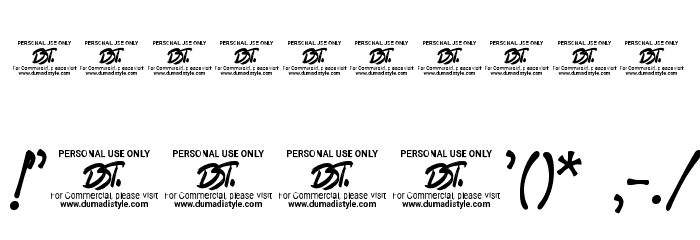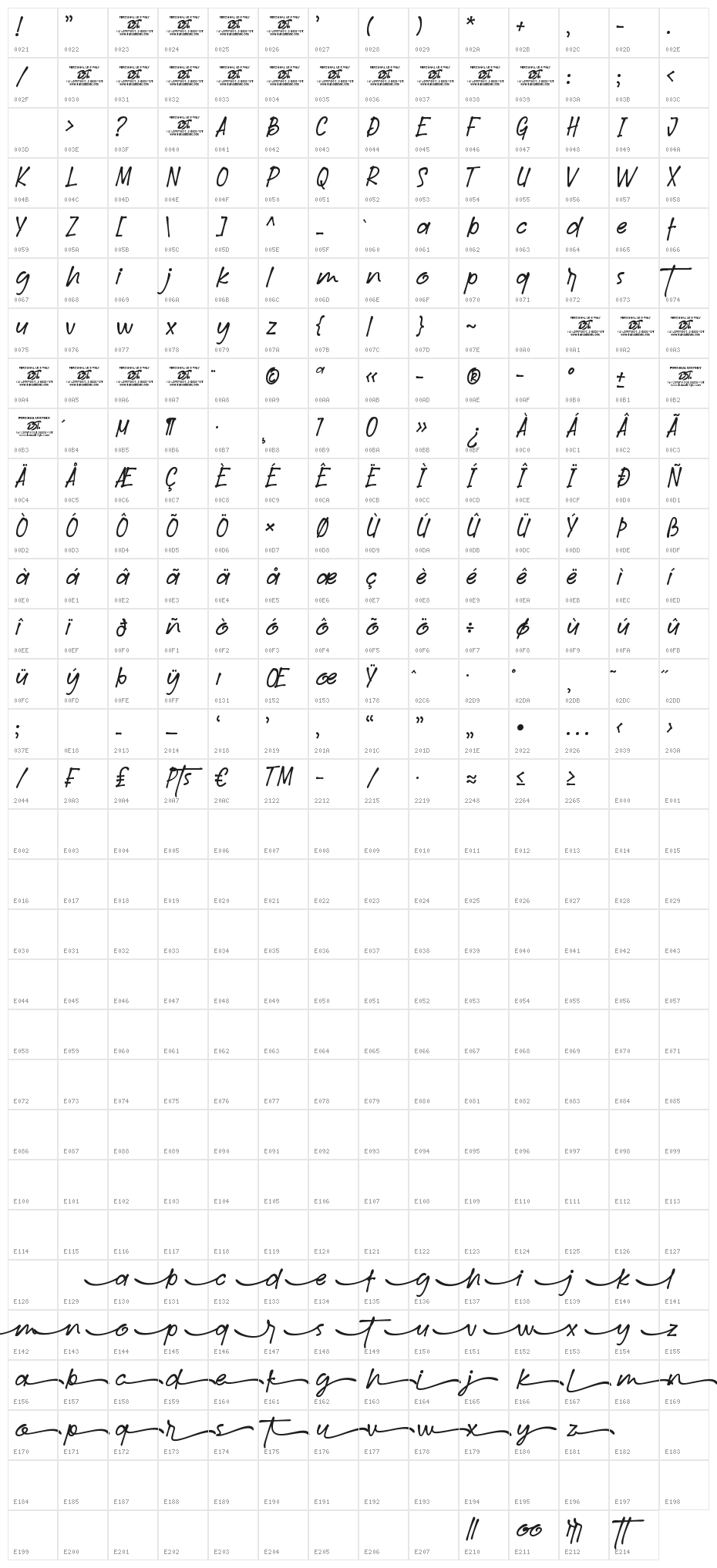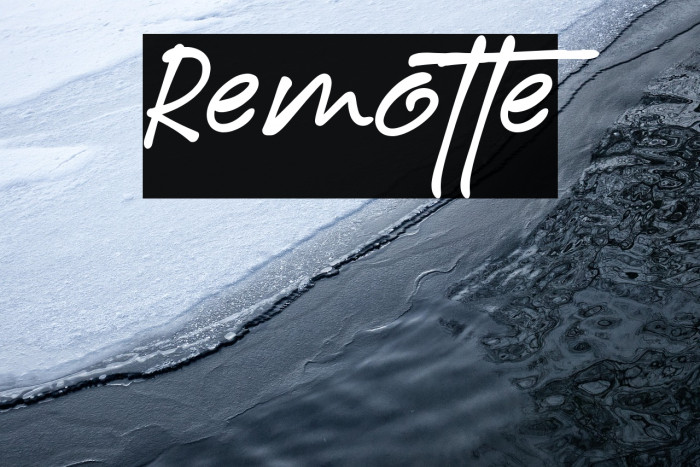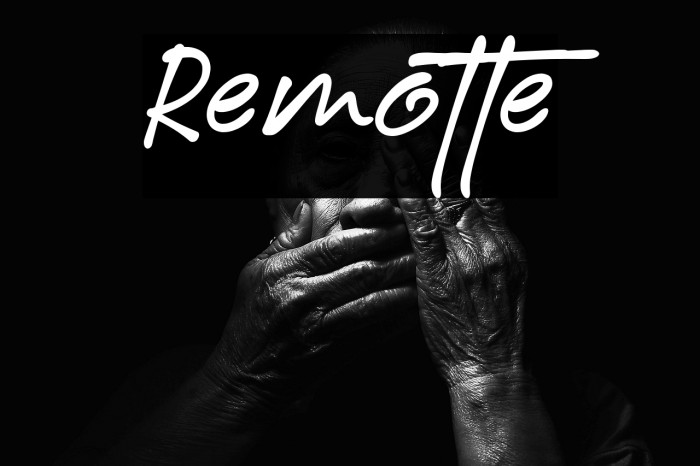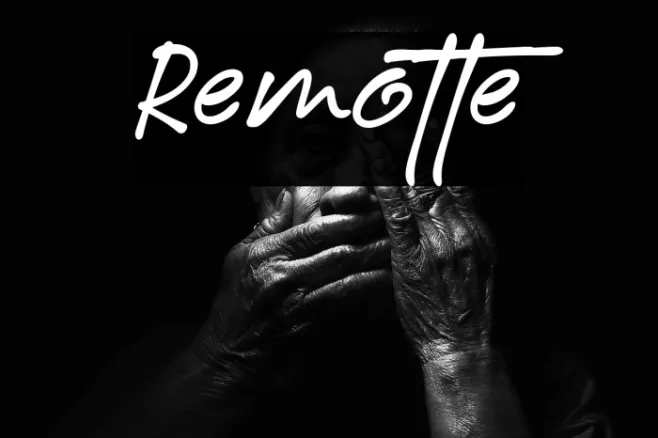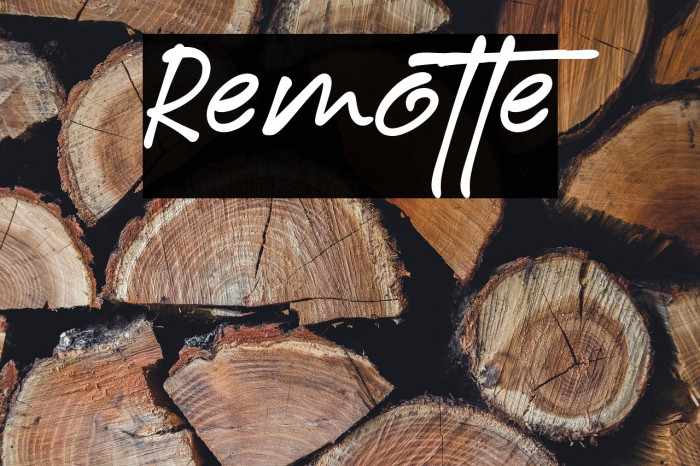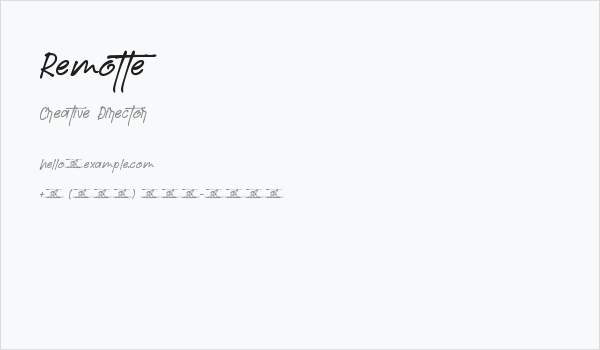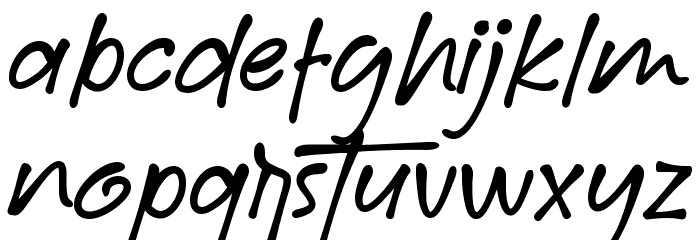
Remotte Font
Remotte Description
This font exhibits a lively and dynamic handwritten style, characterized by its fluid and slightly slanted letterforms. The strokes are smooth and consistent, giving it a casual yet sophisticated appearance. The uppercase letters are bold and prominent, while the lowercase letters maintain a balanced and harmonious flow. The font includes a full set of numerals and a variety of special characters, enhancing its versatility. Its playful and energetic nature makes it suitable for projects that require a personal touch or an informal vibe.
| Overall Style | Casual, Energetic |
| Use Case | Headlines, Invitations, Personal Branding |
| Proposed Projects | Ideal for greeting cards, invitations, personal branding, and creative projects that require a personal touch. |